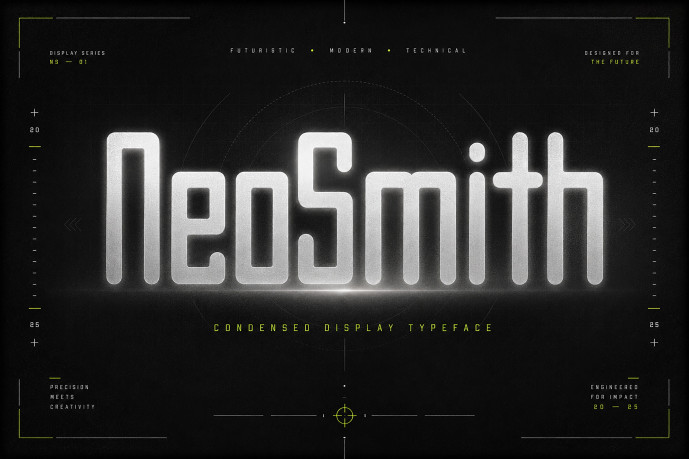
Step into tomorrow with NeoSmith, a sleek, condensed display typeface engineered for modern technical impact! Featuring tall geometric letterforms with soft rounded corners and precision line art aesthetics, this font bridges the gap between sci-fi minimalism and modern tech design.
Whether you’re working on cybernetic gaming UI, futuristic film titles, tech startup branding, automotive graphics, or sci-fi posters, NeoSmith delivers an ultra-modern, high-tech edge.